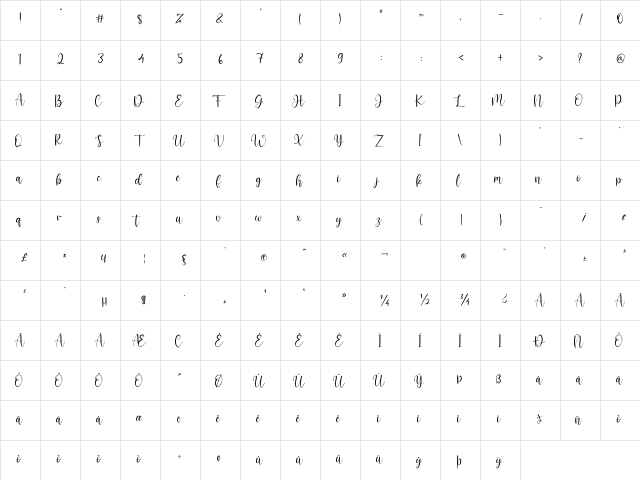
Adellicia Regular
Design Context for Adellicia Typeface
Adellicia is a composed and adaptable typeface that performs quietly and consistently across a wide range of design contexts.